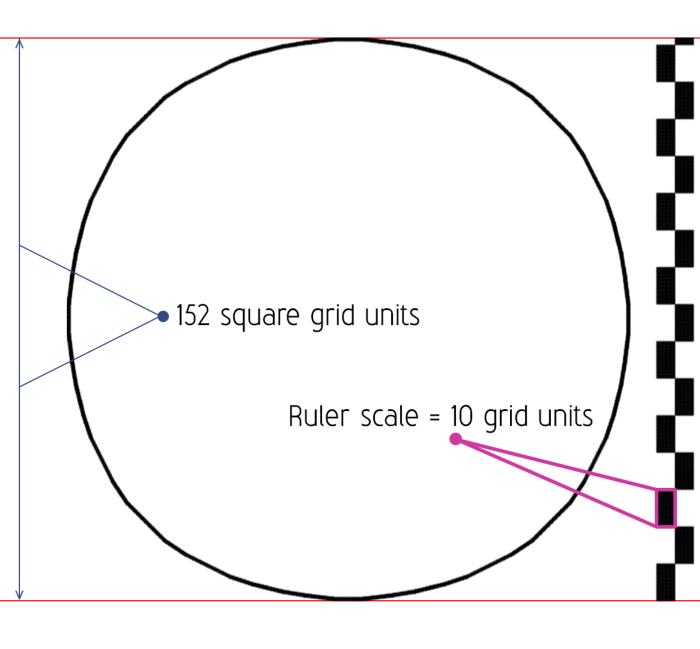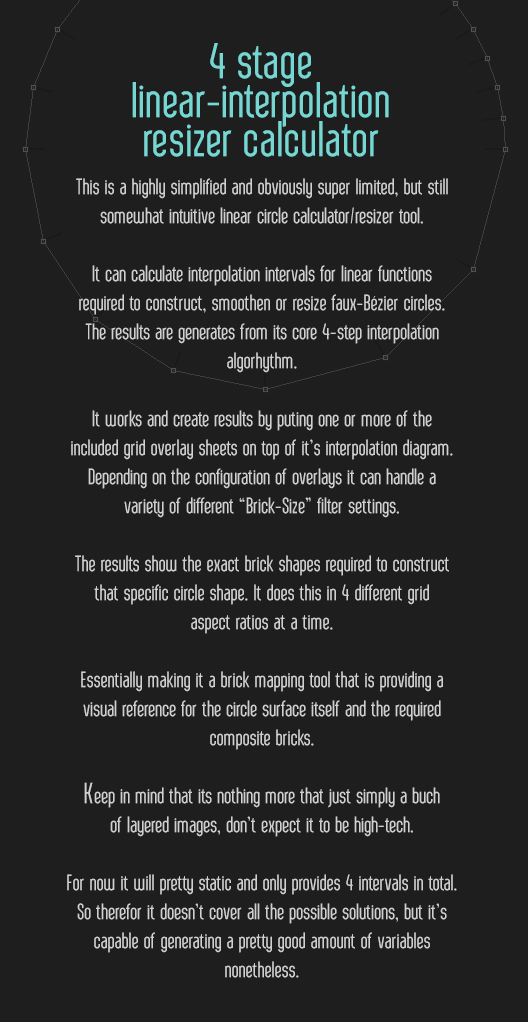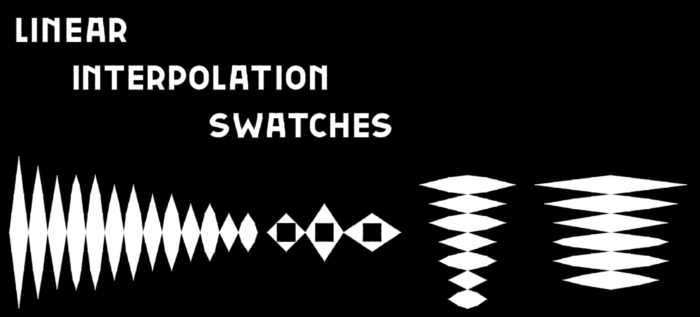
• Collection of linear-interpolated circle attempts, or simply faux-Bezier circles and other curvature related materials.
This toolset basically is collection of pre-made fake circles and curves in numerous different sizes to make ones workflow easier. It could also simply serve as a educative tool that demonstrates the basic FontStruct technique used for making fake curves and circles.
Initially I intended this to be much more complete, but it is simply too much work, and would take forever to get published at once.
Please don't expect this to be perfect, a lot gets fairly close to the "real-deal".
But keep in mind that they remain raw approximations of their true Bezier counterparts. I will try to improve whatever is needed as time progresses, as well as most likely add more stuff.
--- No filters were used ---
@Sed4tives: I never really thanked you for sharing this fantastic resource. I use it all the time. It is great I don't have to reinvent the wheel/circle every time I start working on something rounded. Not every circle has the same quality, but there are quite a few good ones. I have modified a few thin circles, replaced the nudged bricks with simple composites, and made the wall thicker.
I have plenty prebuild geometry and glyph segments scattered around in multple Fontstructions that actually should get combined into one font.
For now I added my recent 152×152×1 circle in here, the one dropped in the forums yesterday.
[NEWLY ADDED!!]
[Forthcoming] Simple HTML coded "Linear Function" calculator tool for constructing faux-Bézier circles. Demonstration image in the comment bellow.
I've Included a set of pre-build Linear-Interpolation swatches in all four rotations to the tool-set (not modified copy/paste. But fully restructed from scratch. for easy access to custom compositions). This is my personal '2-go-2' staple swatch-kit for the FontStruction of large grid fonts using the 'faux-Bézier' technique. Which is a method of interpolating step function to construct a radial basis function approximation, or in other terms a 'curvature'.
Made some improving changes to this today!
To start with, I have relocated most content to other unicode locations and merged certain things to make a smaller easier accessible package and to improve FS's gallery preview. Also have I started to clean things up, remove nudged bricks and replacing them with new plain composites if possible, and in the process of doing so I also began to remodel the lower grade forms to make improvements here as well. (For now an ongoing WIP as I havent covered everything yet). Old and lower grade forms haven't been deleted, but dragged above the newly improved ones. As some of these might still find use in some projects. And last of all I have also started including new prebuild circles (moslty outlined version)
Thats about it for now I guess, more similar changes will likely follow in the next following days untill I had enough of it again, but I will return to this project every once in while and continue where I have left off last time.
My best advise to benefit most from this ever evolving nature of the project is to drop in every now and then to check for new updates.
is there a 2 bricks thick 4x4?
@ the-fonteR: Sorry for the late reply... about your brick request, previously there wasn't, but I included 4 different variations of a 4x4x2 half arc..
I spotted a spelling mistake in your 4-stage linear-interpolation resizer calculator (say that ten times fast)...